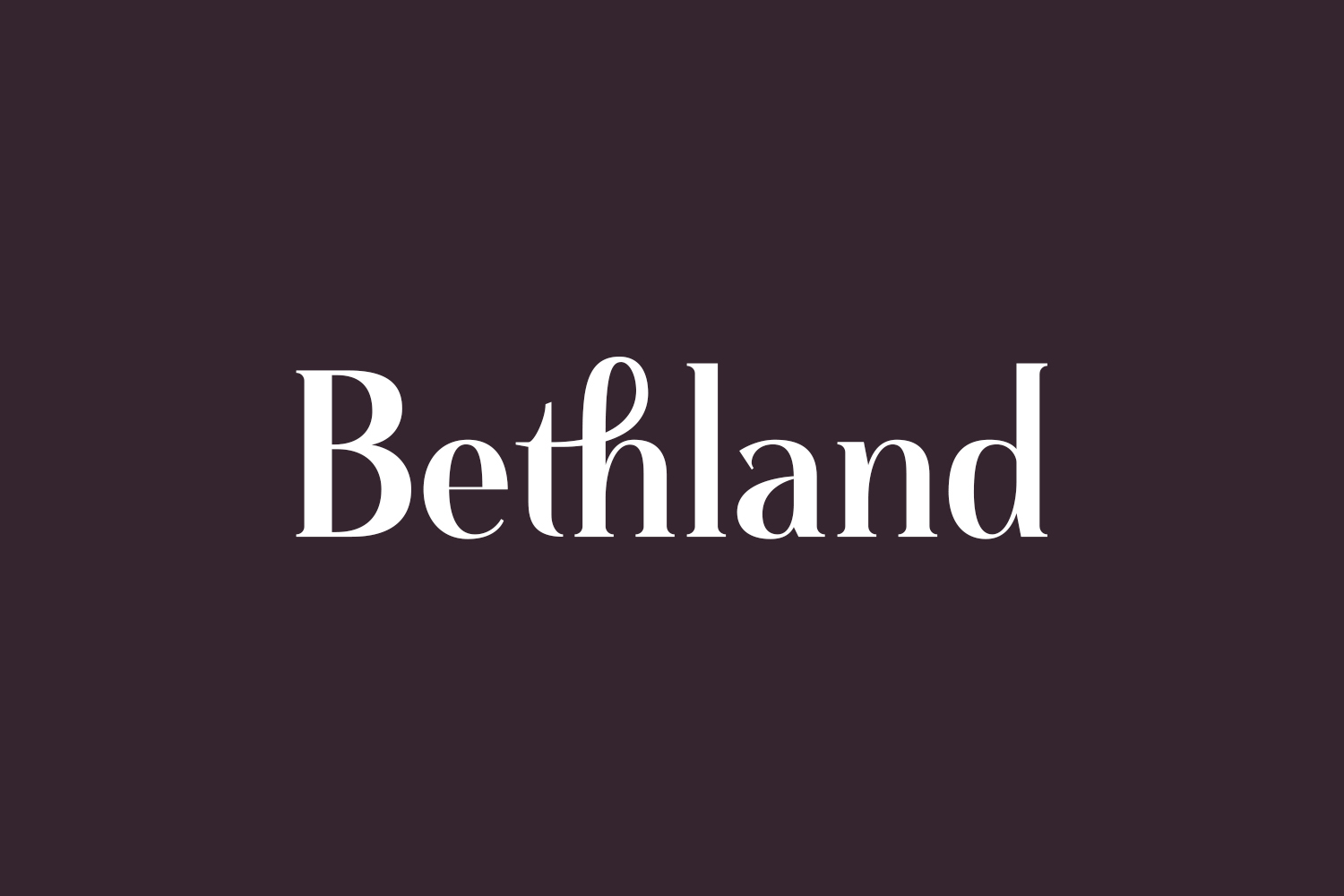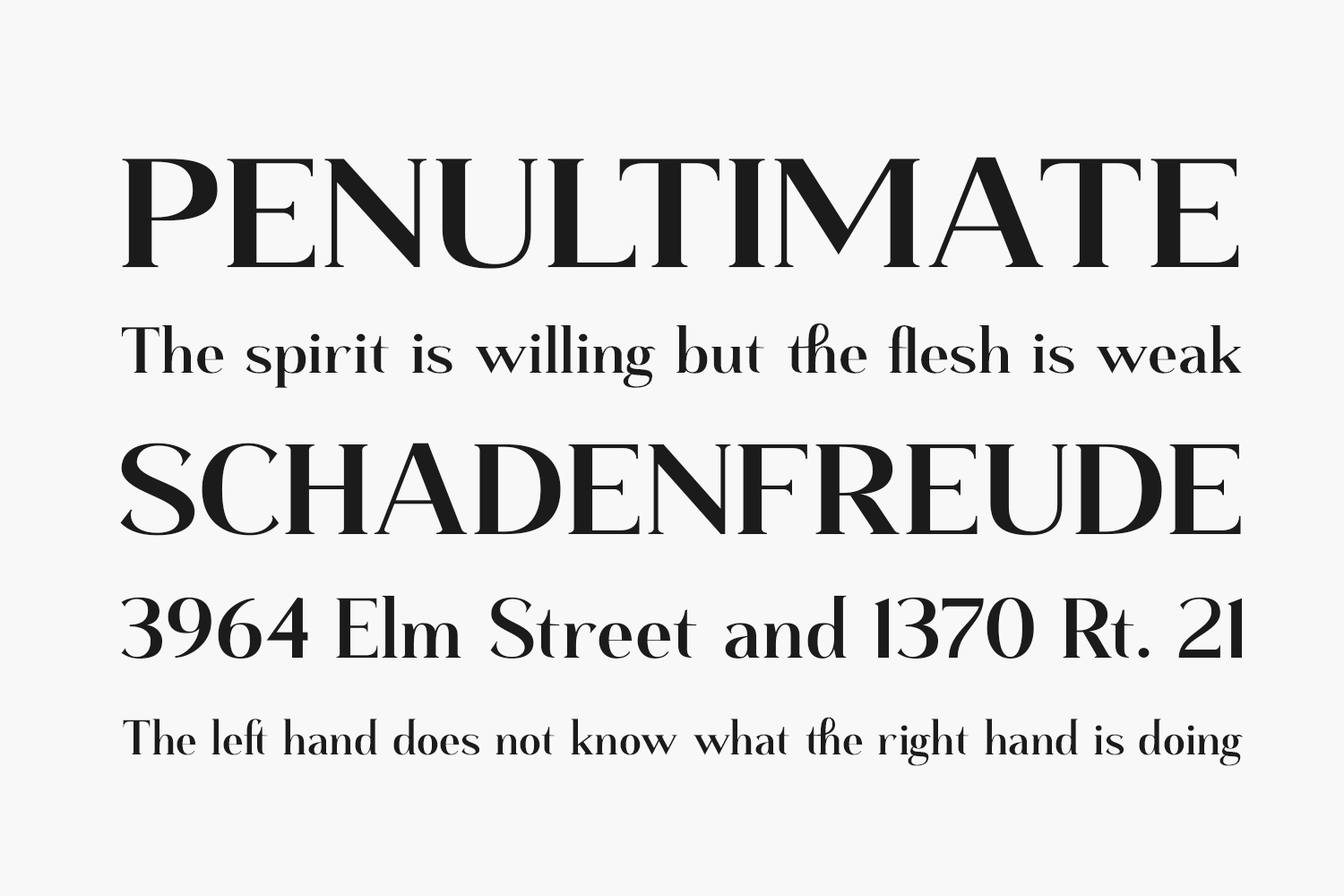
Discover Bethland Free Font, a sophisticated serif typeface blending modern flair with timeless elegance. Elevate your brand with its unique style, ideal for luxurious logos, captivating book or movie titles, fashion labels, magazine layouts, apparel, exquisite lettering, inspiring quotes, and beyond. Download the font for free if you need it for personal use or purchase the full version for commercial use.